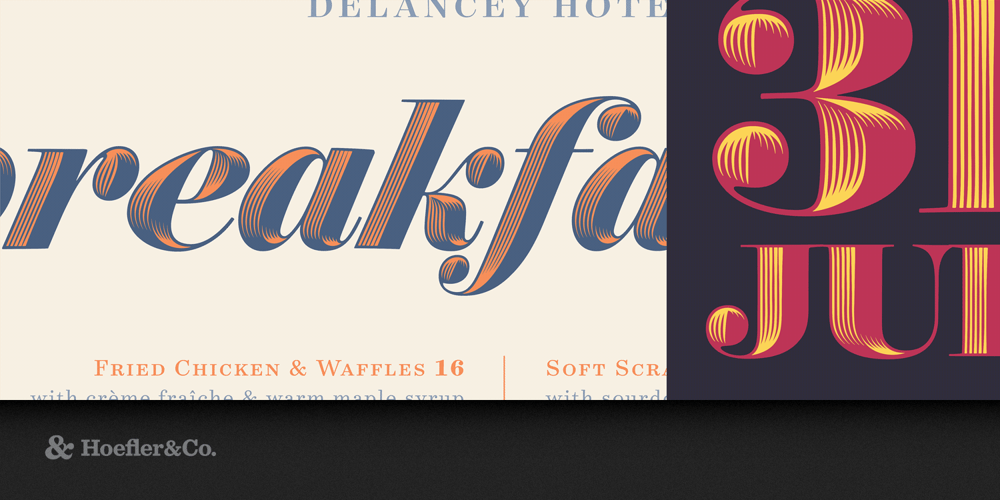
Obsidian Font Family was designed by Andy Clymer with Jonathan Hoefler and published by Hoefler & Co.. Obsidian contains 6 styles and family package options. A majestic typeface uses digital means to achieve traditional ends. The Obsidian typeface was designed by Andy Clymer with Jonathan Hoefler in 2015. Like the Surveyor typeface upon which it is based, Obsidian was inspired by mapmaking, celebrating the fanciful engraved legends that once adorned maps produced through copperplate engraving. Obsidian spans two genres, combining the handmade qualities of English Vernacular lettering with the robust proportions of ‘fat face’ poster types, two innovations in large-size lettering from the early years of the Industrial Revolution. Obsidian was recognized by an Innovation by Design award in 2015. From the desk of the designer: Decorated typefaces have long been a battleground for technology. In the nineteenth century, steelplate engraving allowed letters to become elaborate, flowery confections, giving rise to a style that lives on in the shaded and curlicued letters of banknotes and diplomas. Type foundries responded to this new fashion by creating ever more intricate printing types, to help printers attempt the same sorts of effects achievable through engraving. Producing these typefaces proved challenging: elaborate hand work was time consuming, resulting in fonts with severely abridged character sets (rarely more than just capitals), and attempts at mechanization produced only “engine-turned” letters with uniform patterns that were bland and unevocative. The nineteenth century would never see a solution to its own riddle of how to industrialize the shaping of letters. We began the Obsidian project with two questions: can a decorated typeface pay homage to this tradition while being relevant to designers today, and what tools can we create to help us get there? Type design is still largely a manual art, and we felt the acute need for technical solutions to help us both explore our options through rapid prototyping, and execute successful ideas across the massive scale demanded by a contemporary typeface. Not content to be a set of decorated capitals, Obsidian would have 1,400 glyphs spanning both roman and italic styles, bringing its esprit to the most esoteric of punctuation marks and accents. Having completed work on our Surveyor family, which celebrates the rich traditions of engraved letterforms, we used this work as a foundation for Obsidian. To explore the ways in which a typeface might be decorated, we developed a set of proprietary tools to add highlights to letterforms — ultimately creating a suite of software for interpreting two-dimensional letterforms as three-dimensional objects, through the application of virtual light sources that vary in position, angle, and intensity. Obsidian followed an iterative process, in which the tools revealed not only opportunities for improvement in the code, but in the typeface’s underlying design, and even unexpected virtues that we allowed to reshape the design brief itself. The result is a type family that escapes the shackles of historical style, while honoring the best traditions of decorative typography from the industrial age.